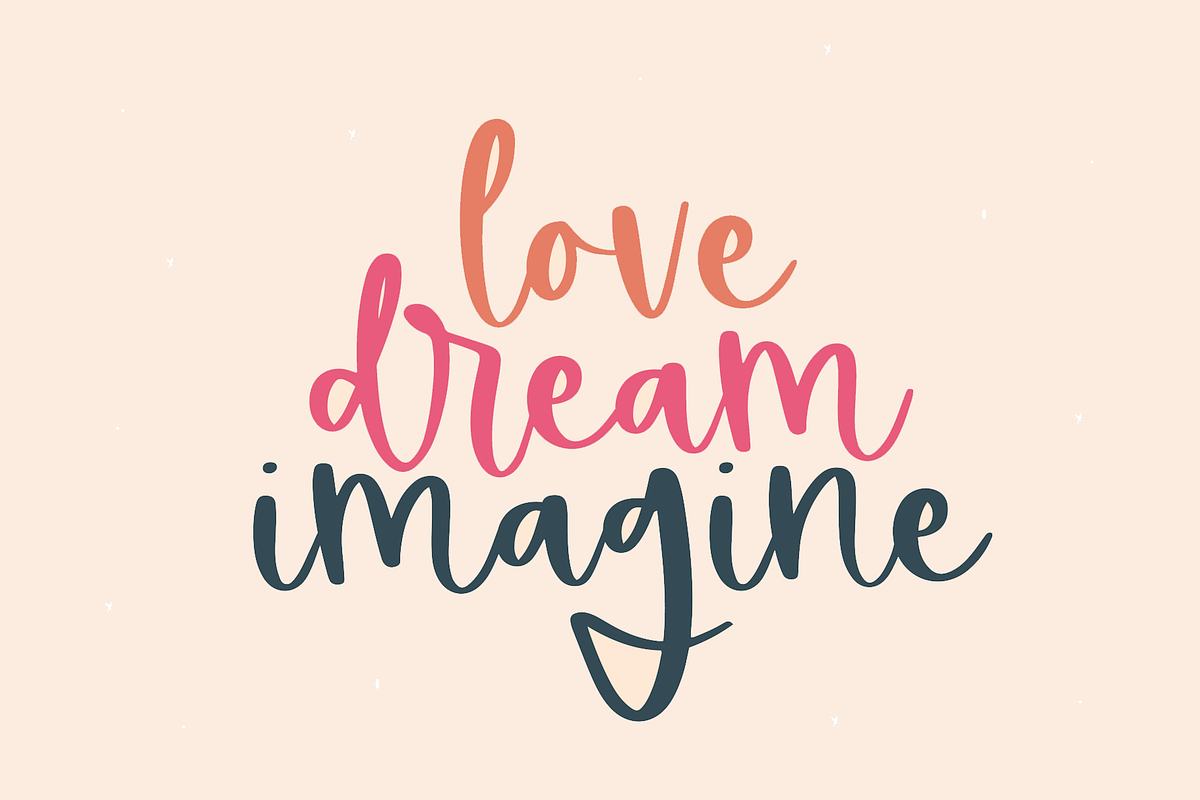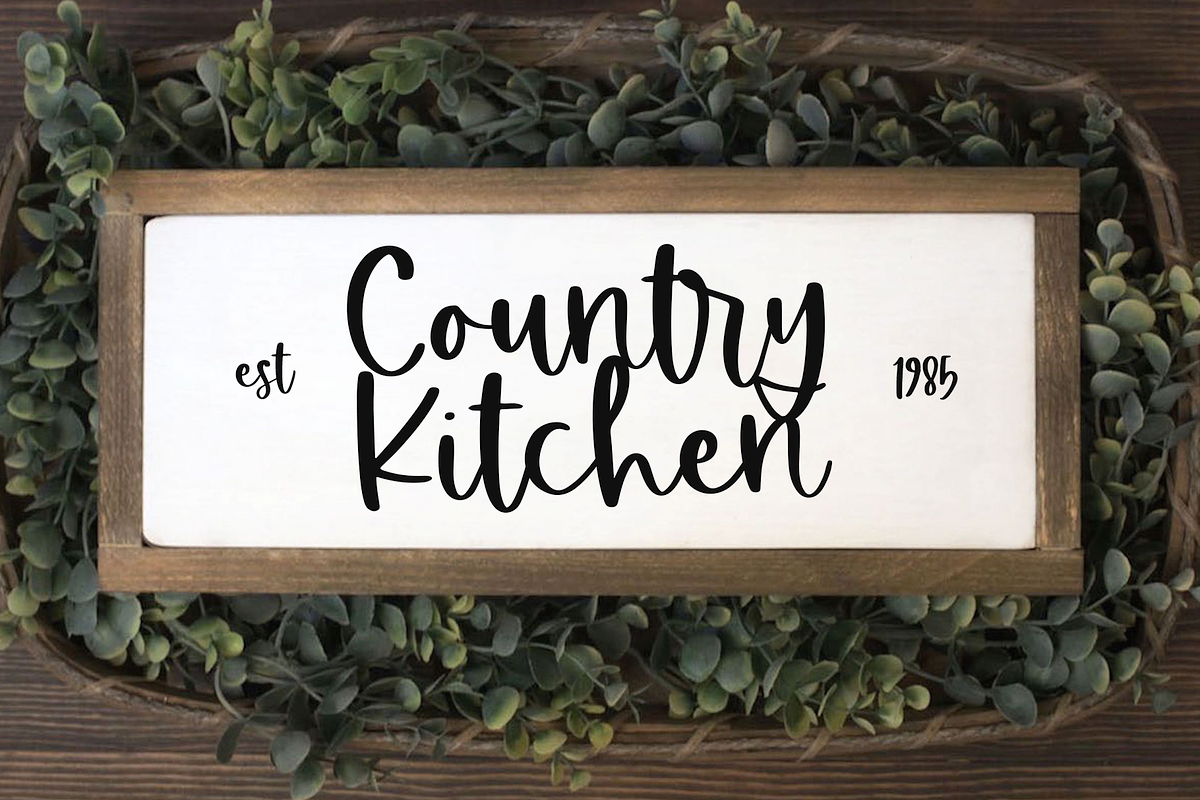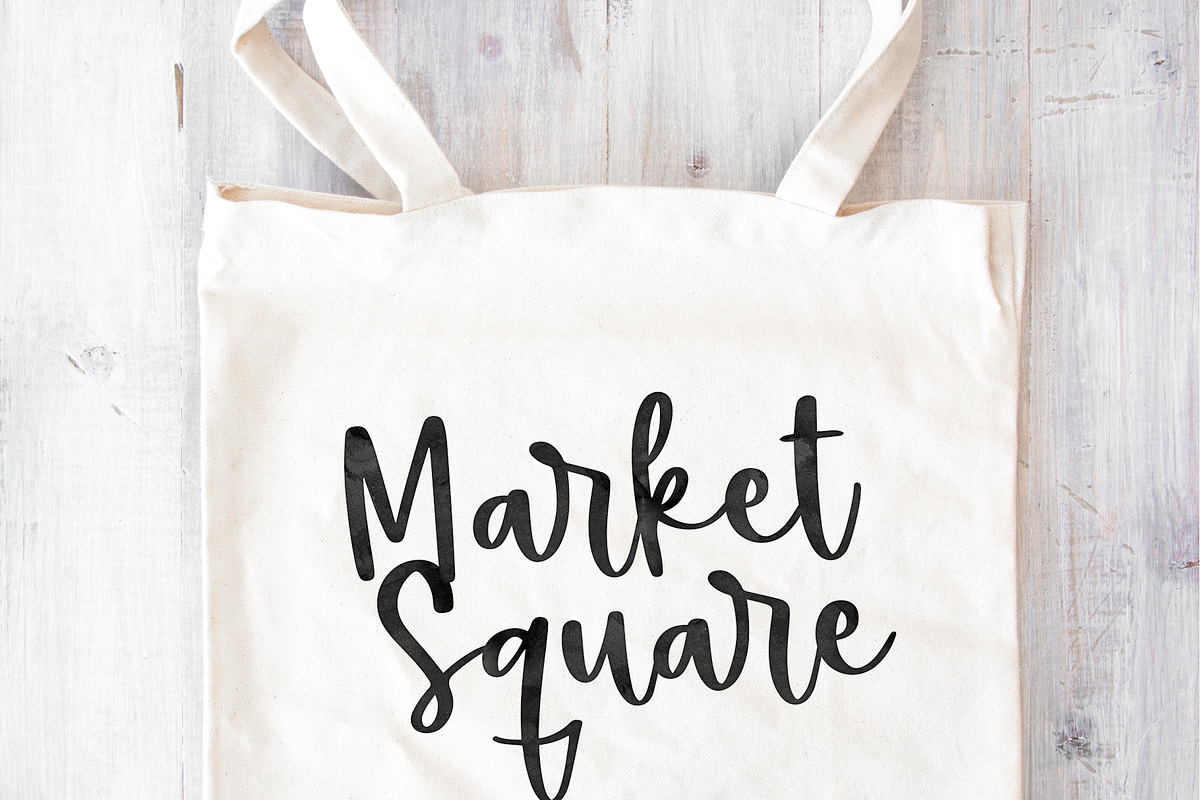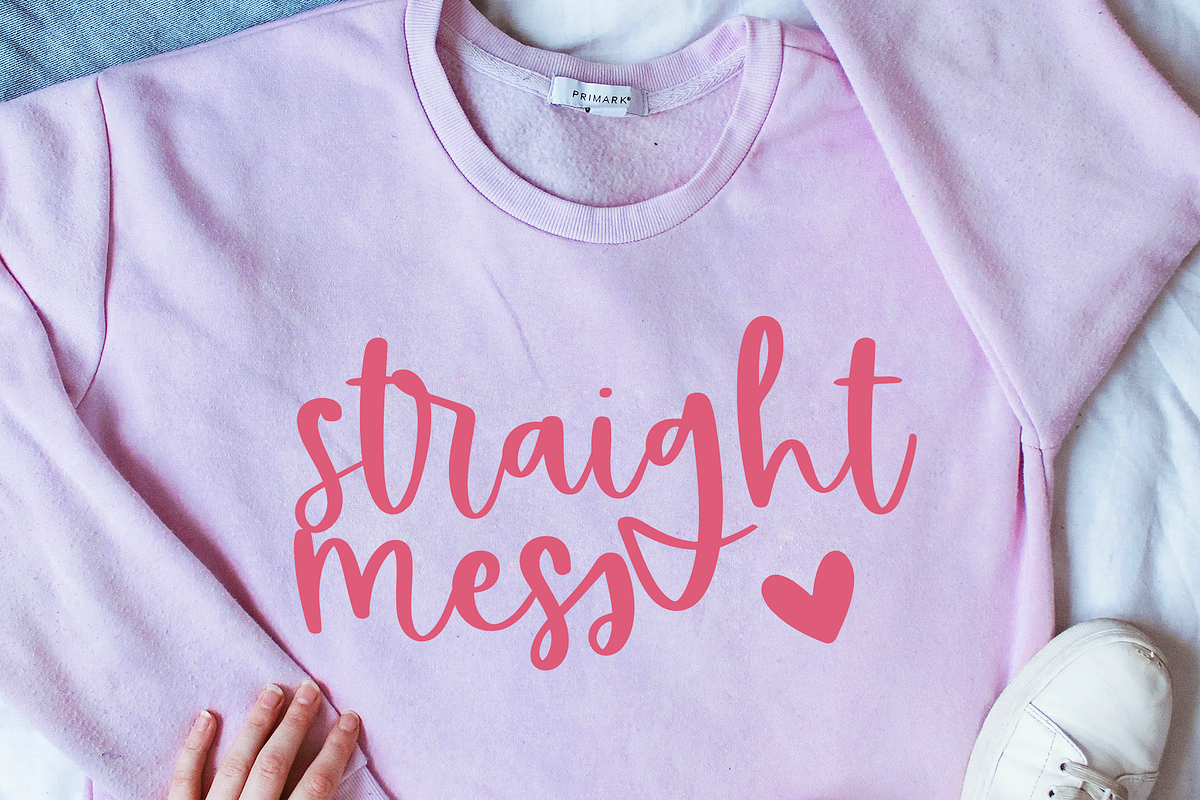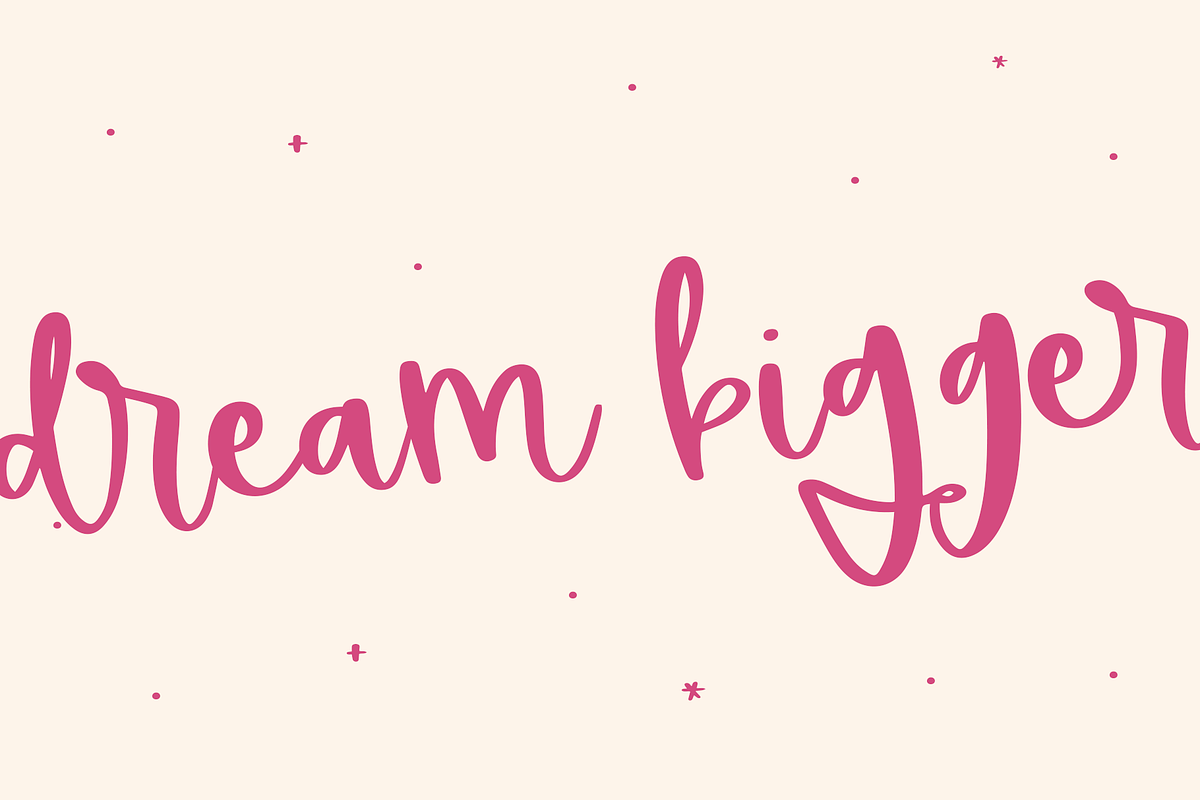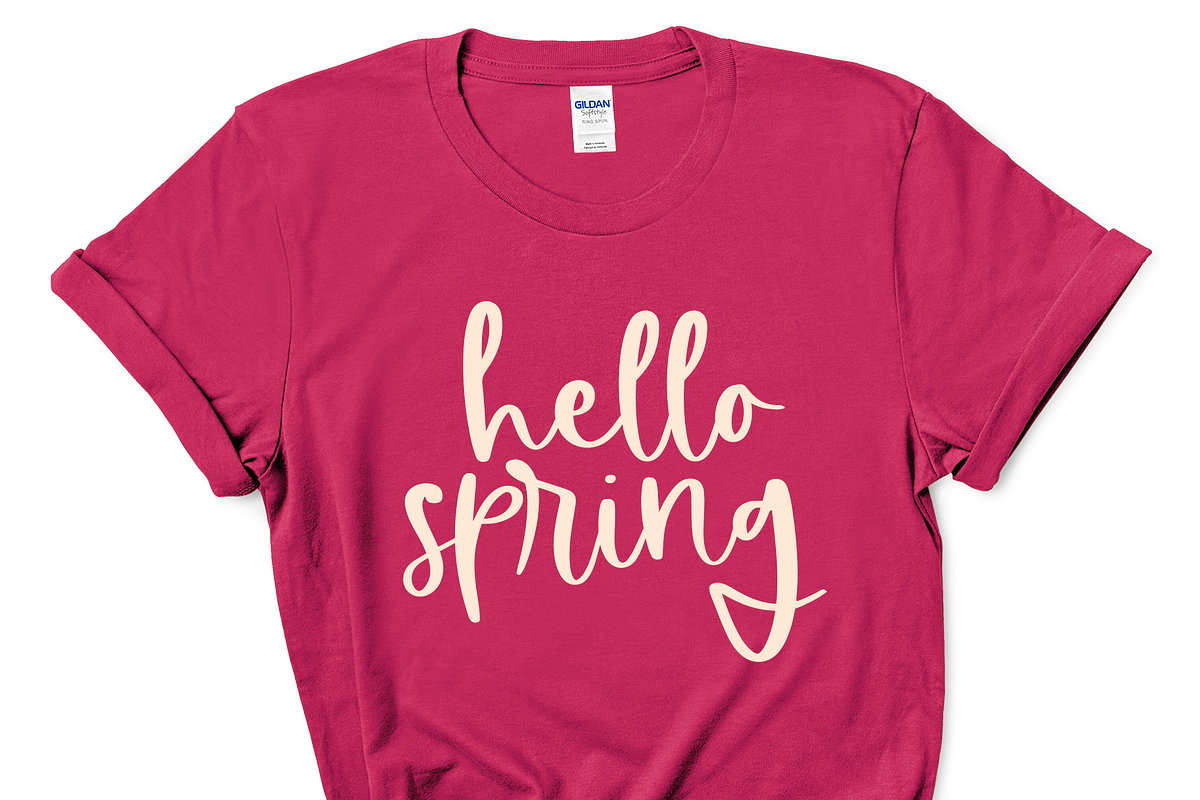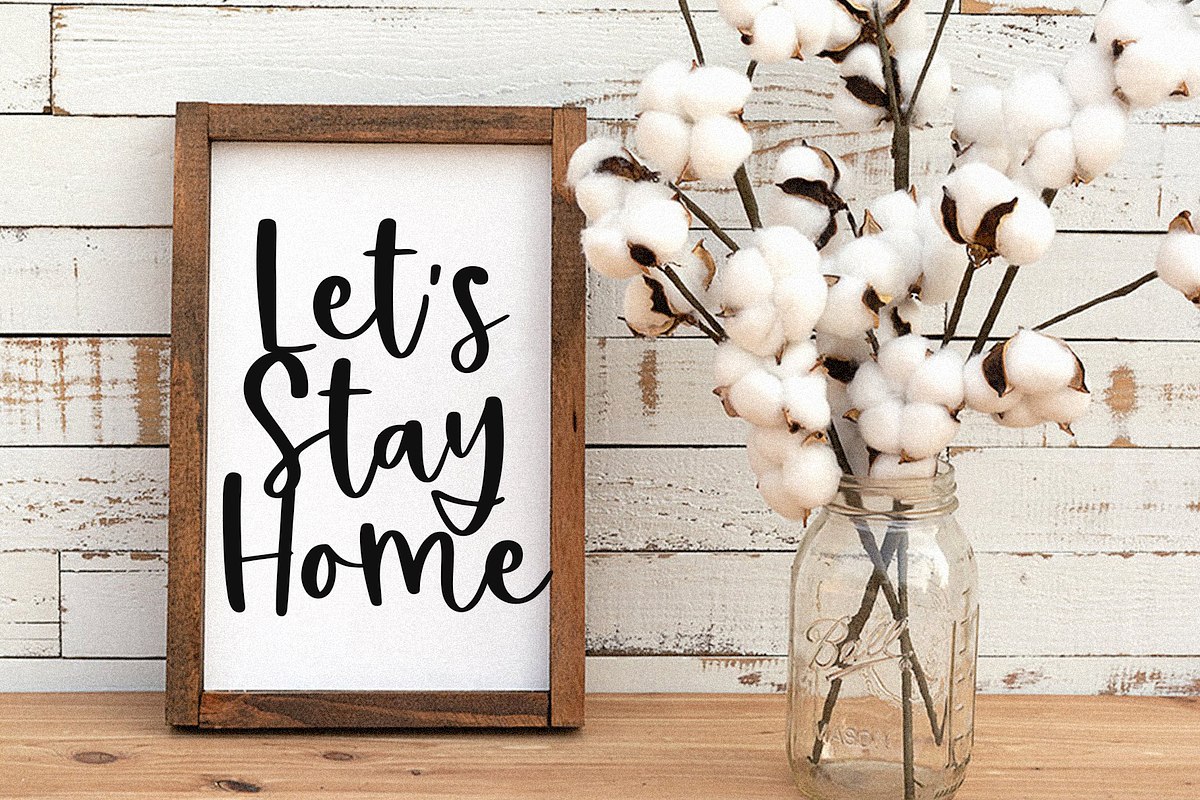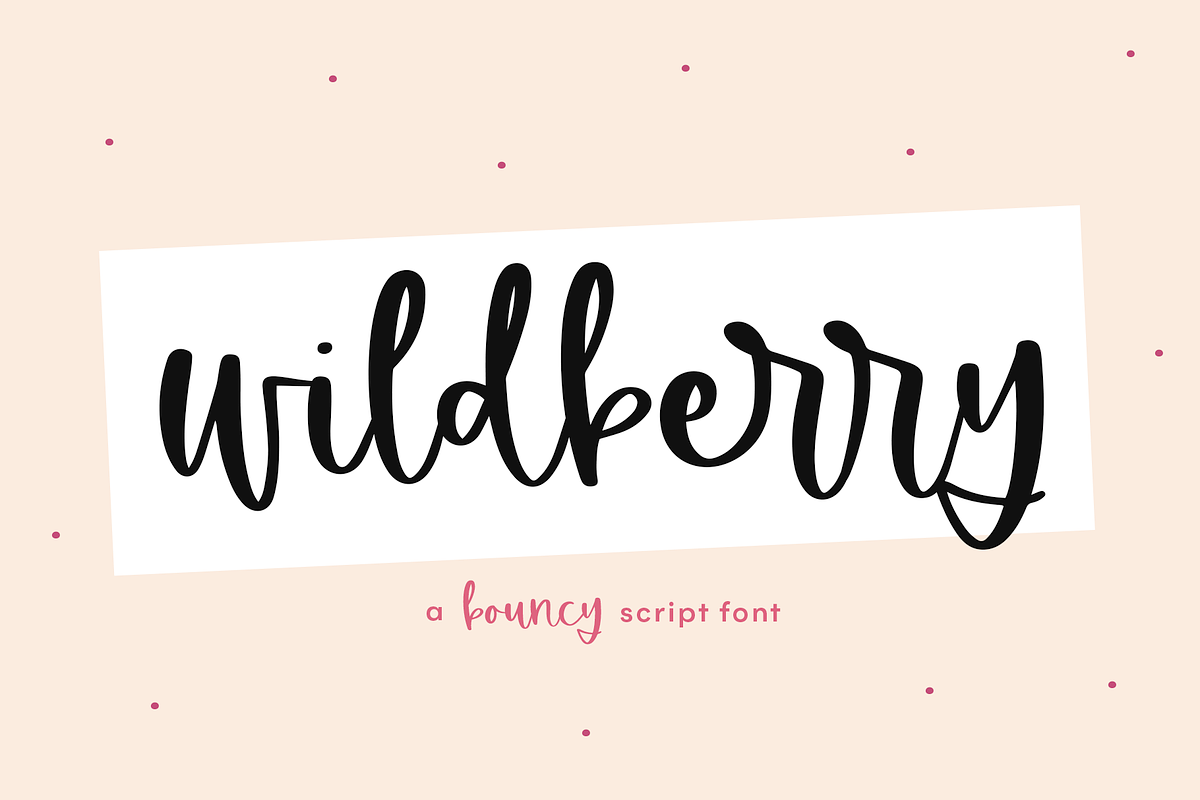
Wildberry | Handwritten Script Font
Wildberry is a bouncy handwritten script font.
This font is perfect for branding, logos, cricut projects, svg designs, social media, shirts,
Wildberry | Handwritten Script Font by KA Designs fits naturally into Branding, posters, packaging, typography.